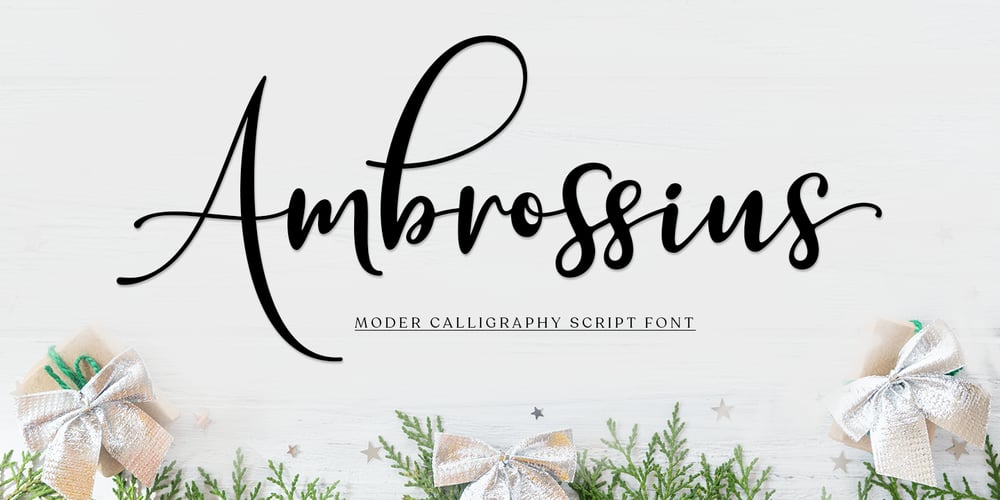
Ambrossius Script Font Family was designed by Mur Zani and published by Zane Studio. Ambrossius Script contains 1 styles and family package options. Ambrossius Script is a new modern script font with an irregular base line. Trendy and feminine style. Ambrossius Script looks beautiful in wedding invitations, thank you cards, quotes, greeting cards, logos, business cards, and more. Perfect for use in ink or watercolors. Including beginning and end letters, alternatives and support for many languages.To activate the OpenType Stylistic alternative, you need a program that supports OpenType features such as Adobe Illustrator CS, Adobe Indesign & CorelDraw X6-X7, Microsoft Word 2010 or newer versions. There are additional ways to access alternatives / swashes, using Character Maps (Windows), Nexus Fonts (Windows), Font Books (Mac) or software programs such as PopChar (for Windows and Mac).How to access all alternative characters:https: //www.youtube.com/watch? v = Go9vacoYmBwhttps: //www.youtube.com/watch? v = XzwjMkbB-wQhttps: //www.yo … need help or have questions, let me know I am happy to help ๐ Thank you & Congratulations on Design